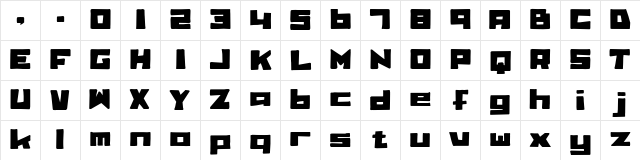
billieBob Regular
Foundry: J O E B O B graphics
Designer: J O E B O B graphics
Design Context for billieBob
billieBob is a composed and adaptable typeface that performs quietly and consistently across a wide range of design contexts.